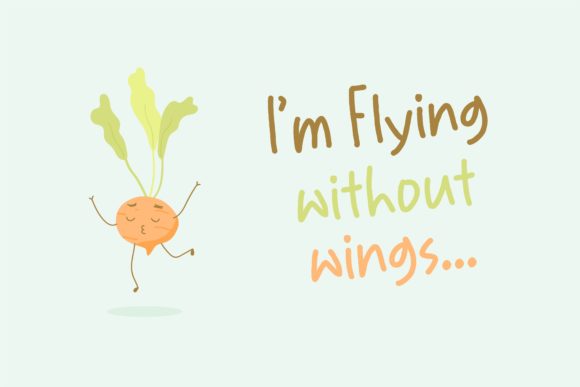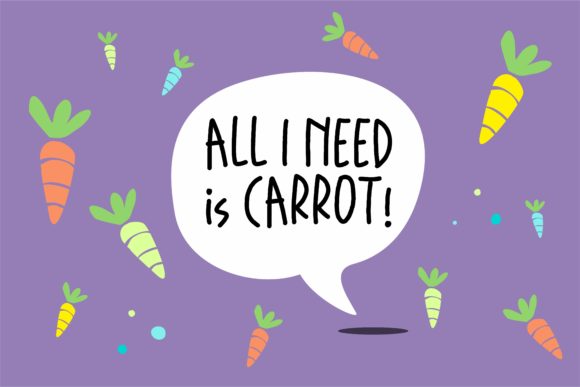
Jack Mick Font
db-ku.com - Script & Handwritten -- Jack Mick is a cute and quirky handwritten font. It can be added to various informal or casual designs. The only limit is your imagination!